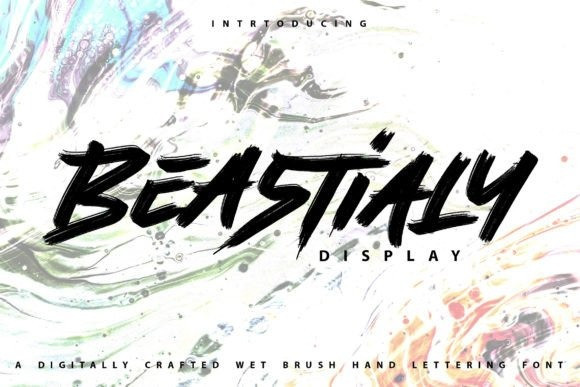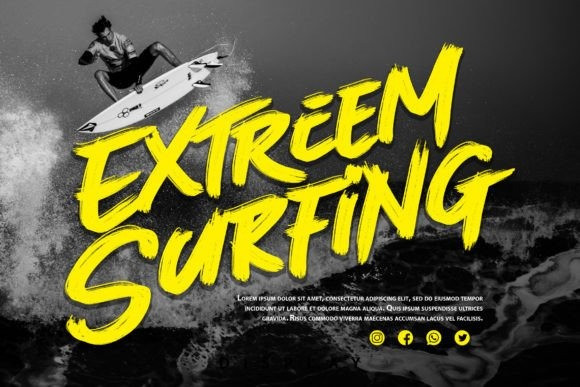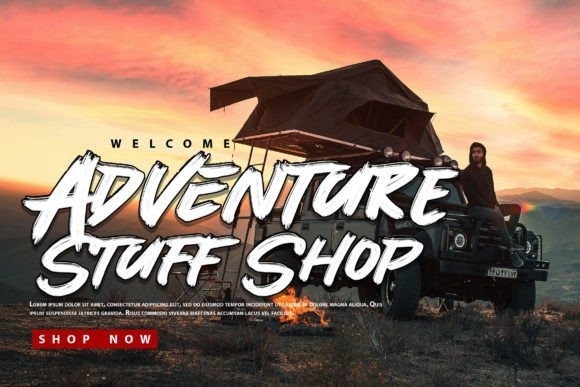
Beastialy Font
Beastialy is a cool and modern brush display font. Whatever the topic, this font will be a wonderful asset to your font library, as it has the potential to enhance any creation.